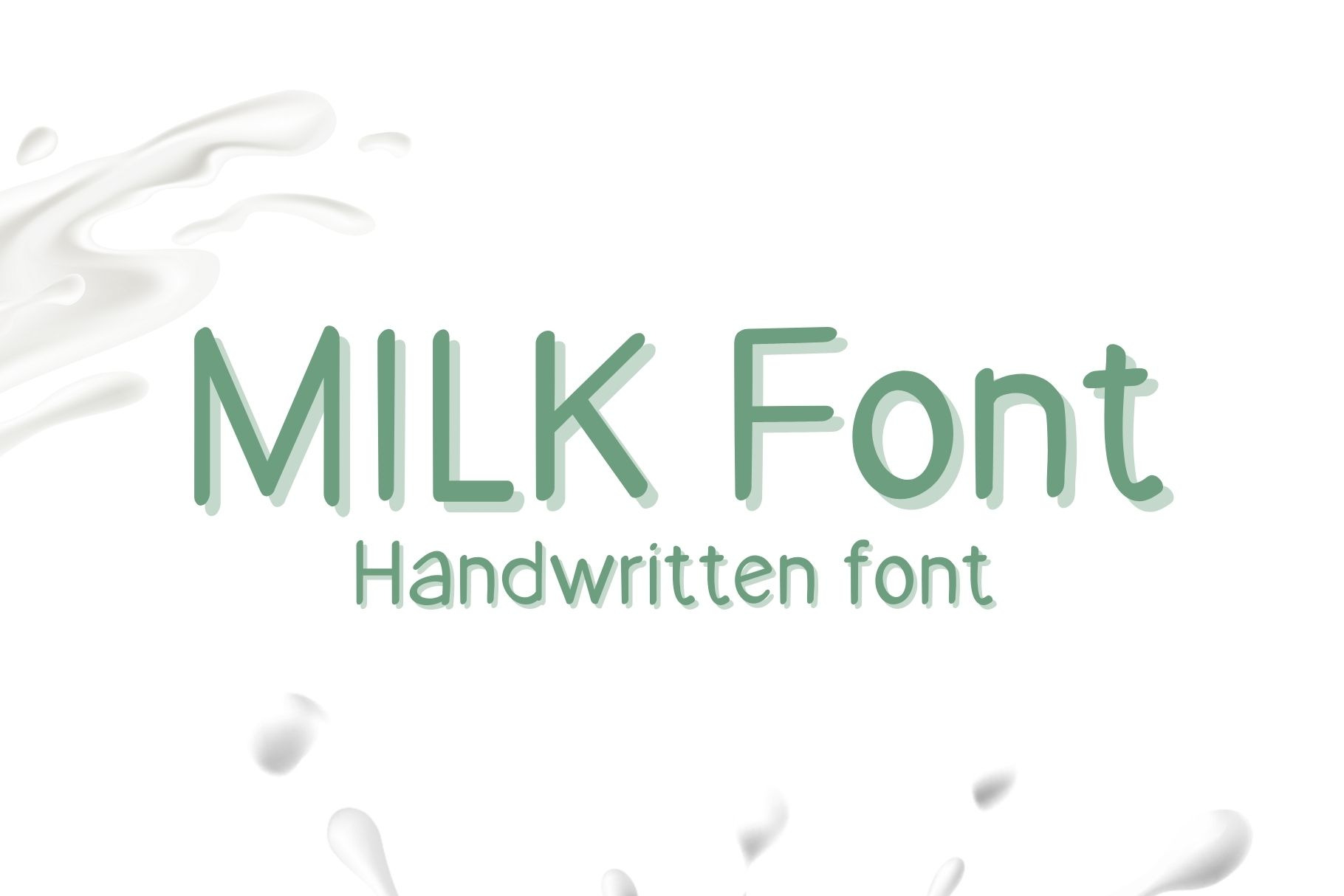
Milk Handwritten Font
Milk font is a digital font that combines the elegance of handwritten font with the simplicity of a cute font. It is perfect for journaling, note-taking, and digital journal projects. The font features unique hand lettering that adds a personal touch to any design.
Milk font is a goodnotes font that works great with Bujo and highlighter designs. The handwritten font makes your study notes and digital journal look more personalized and enjoyable to read. The simple font is highly legible and easy to read even at smaller sizes, making it an excellent choice for any design project.
The Milk font is one of the best fonts for digital projects that require a touch of elegance and simplicity. Its cute font design with rounded corners gives it a soft and friendly feel, making it perfect for children's books or product packaging. This handwritten font is available in both OTF and TTF formats for easy digital font download.